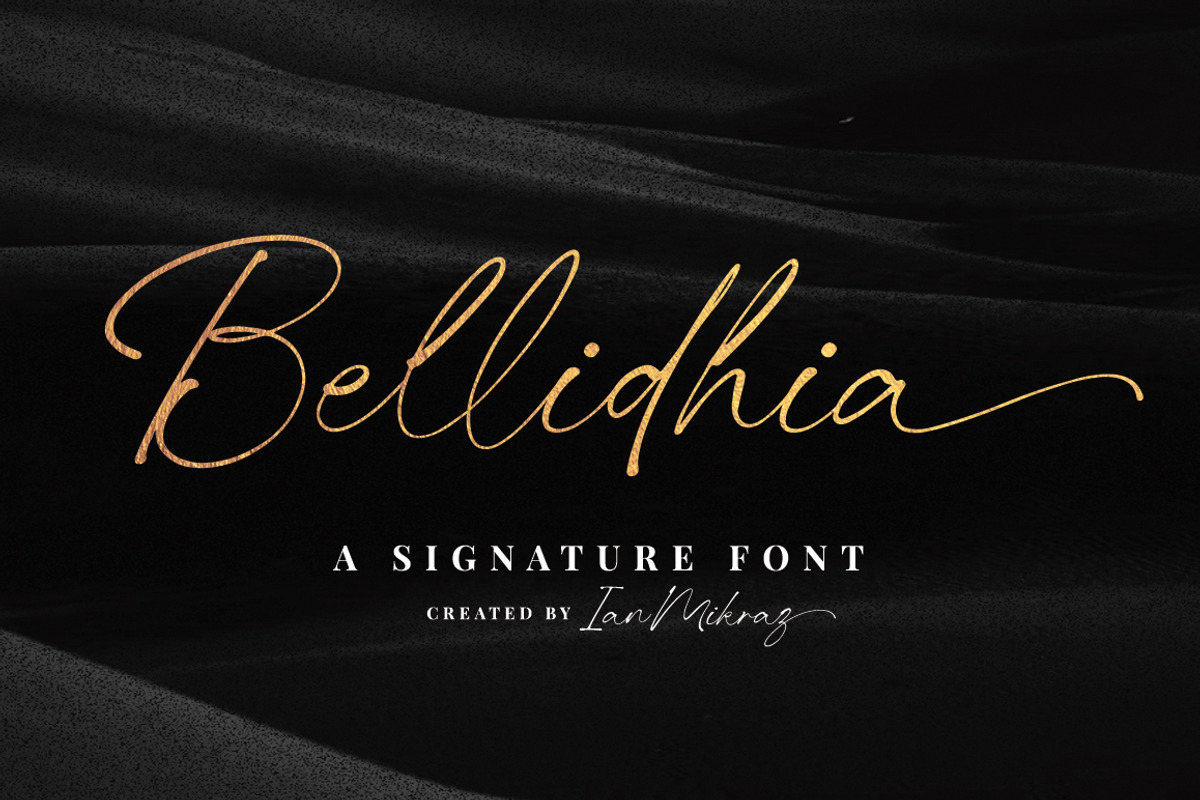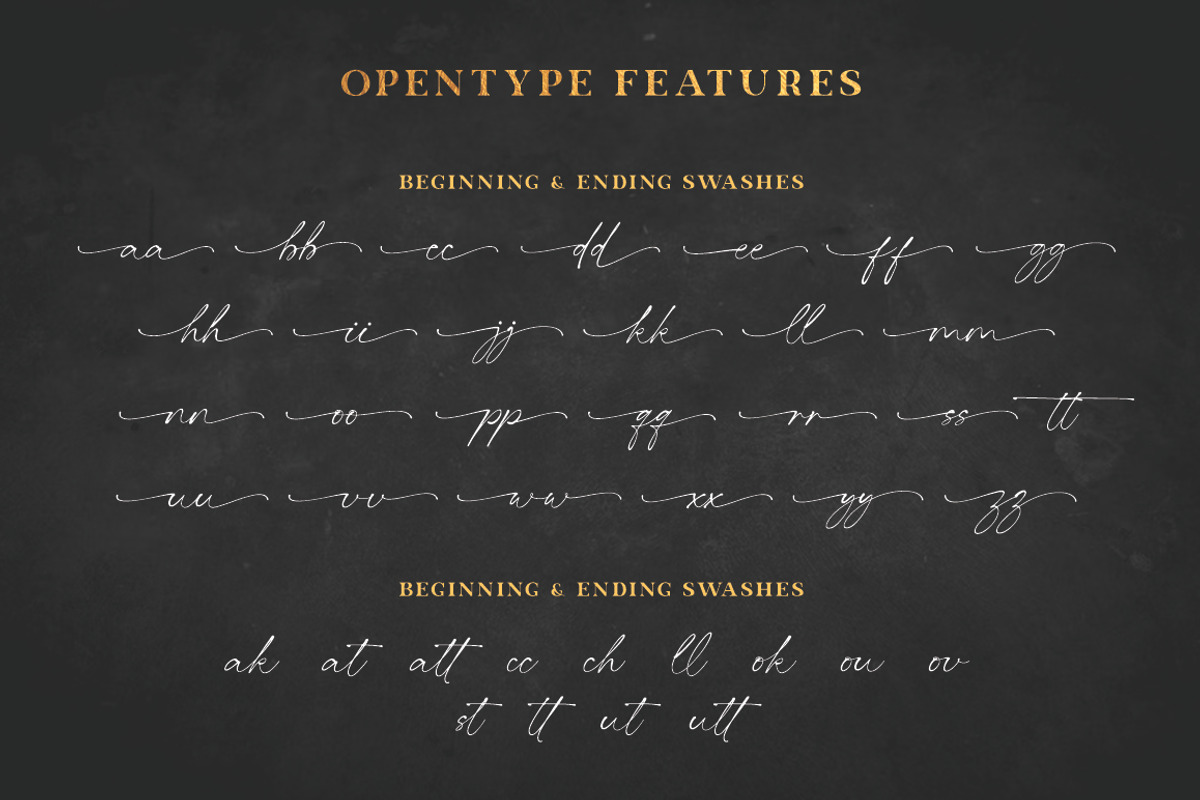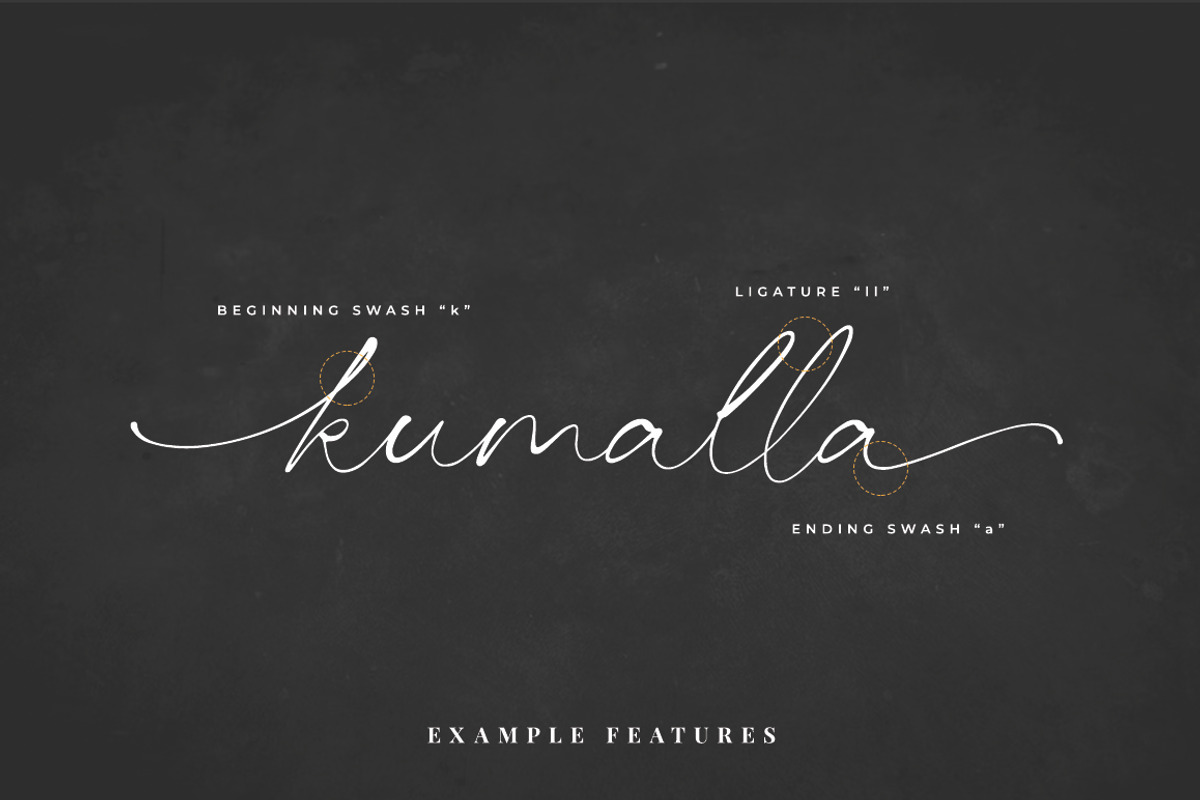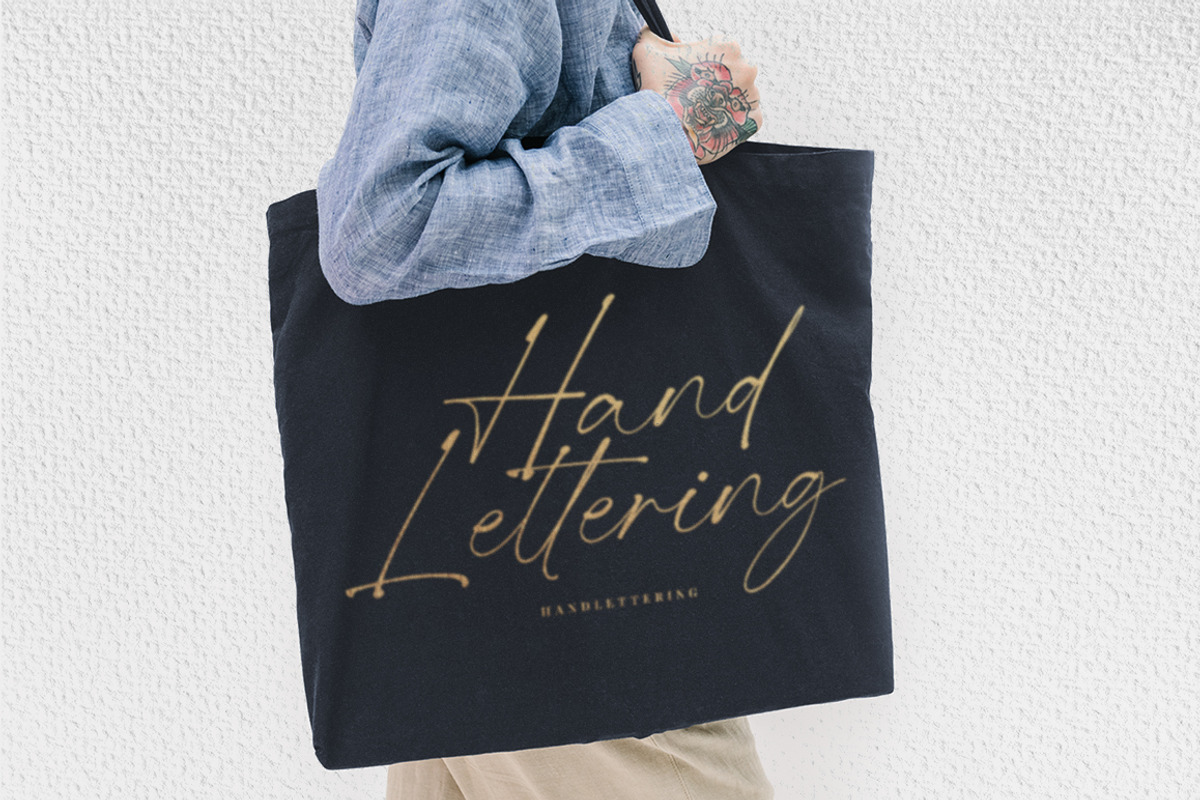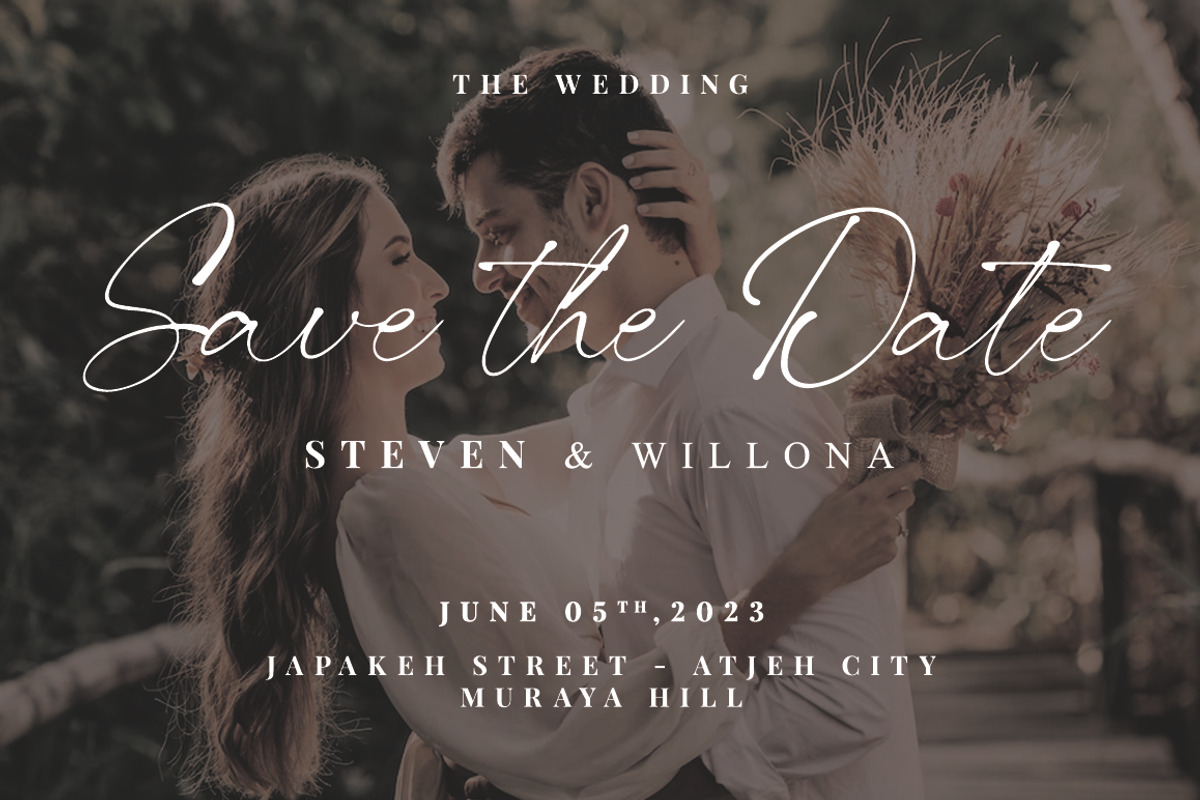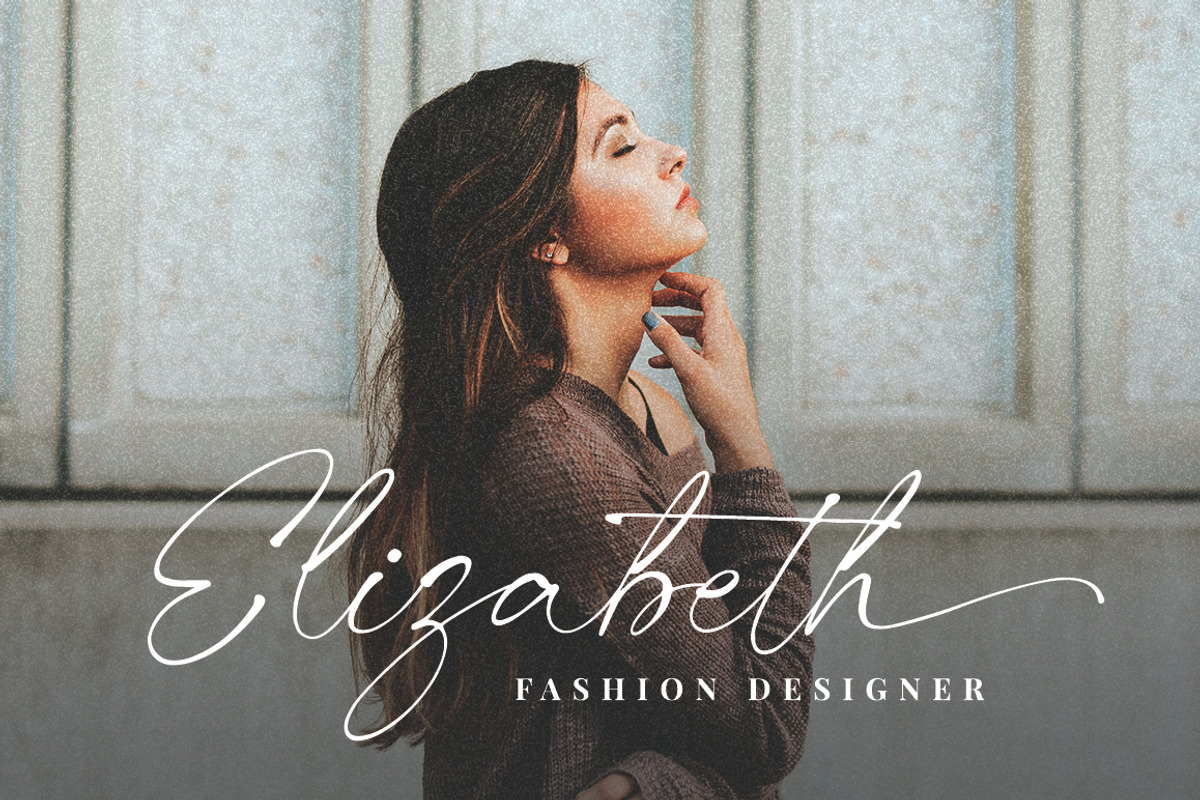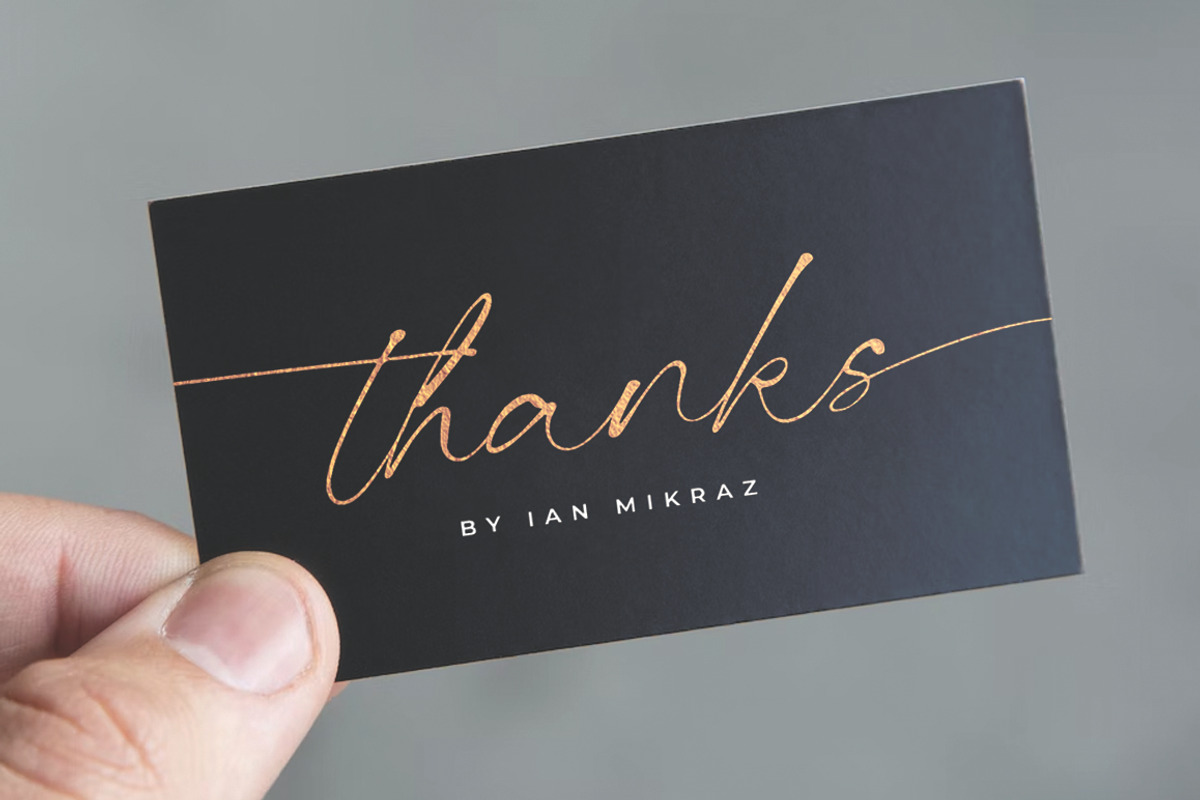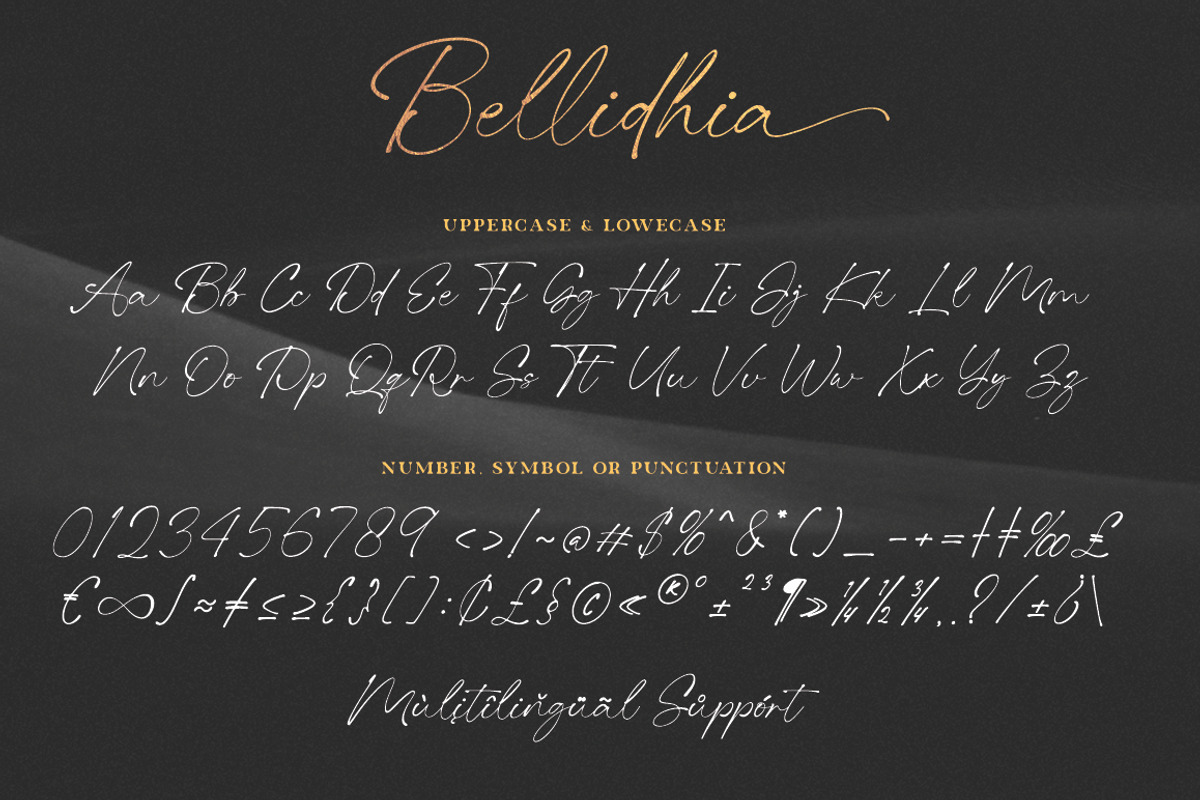
Bellidhia - Handwriting Font
Introducing Bellidhia - Your Perfect Handwriting Font Companion! Embrace the art of effortless charm and add a delightful touch to your designs with Bellidhia, a mesmerizing handwriting font crafted with love and attention to detail.
With its graceful curves and authentic strokes, Bellidhia effortlessly brings the warmth of handwritten messages to your digital world.
Whether you're creating dreamy wedding invitations, captivating social media posts, or heartwarming greeting cards, Bellidhia is your go-to font to infuse a personal, yet professional, touch into every project.
Why Choose Bellidhia?
- Timeless Elegance: Bellidhia is a timeless gem that never goes out of style. It elevates your content with an air of sophistication and an artistic flair, making every word captivating and memorable.
- Seamless Versatility: From branding materials to crafty DIY projects, Bellidhia adapts seamlessly to any design endeavor, unleashing your creativity to explore endless possibilities.
- Easy on the Eyes: Bellidhia ensures perfect legibility, making reading a pleasure for your audience. It's a font that beautifully blends form and function.
Unlock the enchanting world of Bellidhia today and let your creativity flow effortlessly. Embrace the handwritten elegance that connects with hearts and sparks inspiration.
Bellidhia - Handwriting Font is suitable for Apparel Brand, any greeting cards, Painting design style, or any design that needs natural and personal touch. Mix and match the alternate characters to add an attractive message to your design.
Features of Bellidhia - Handwriting Font
- Standart ligatures